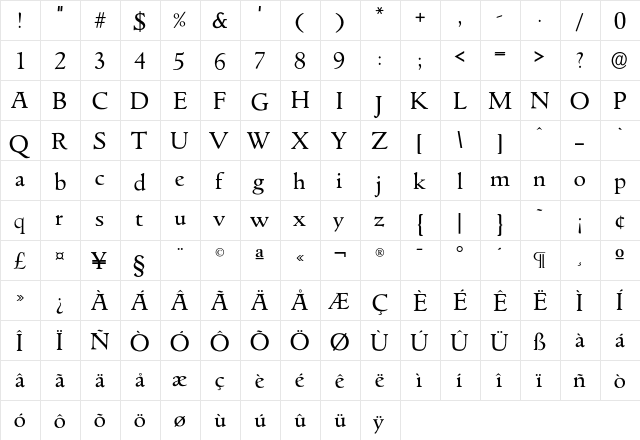
GoudyItalienSOpti Regular Font Preview
GoudyItalienSOpti Regular
GoudyItalienSOpti Regular Font Details
Design Context for GoudyItalienSOpti Typeface
GoudyItalienSOpti offers clean, dependable letterforms without strong stylistic allegiance, making it a practical choice for designers who need flexibility.